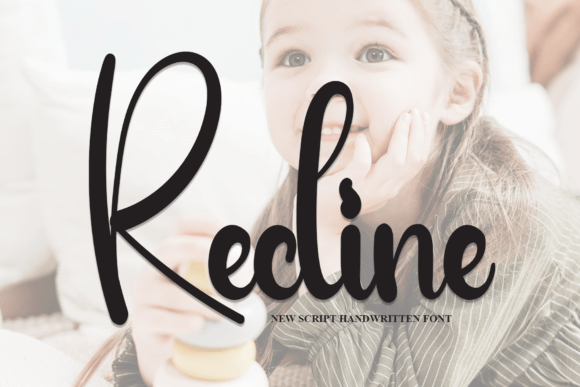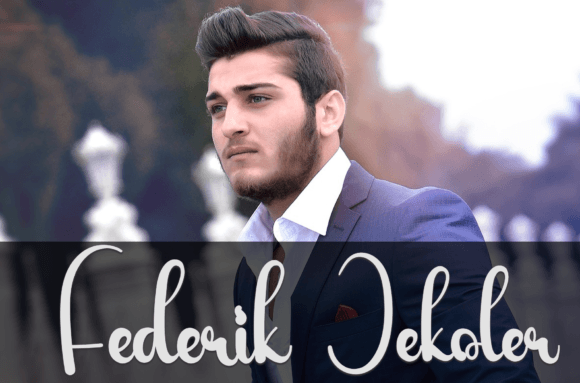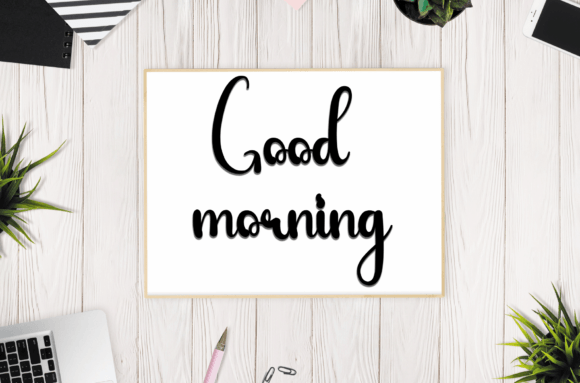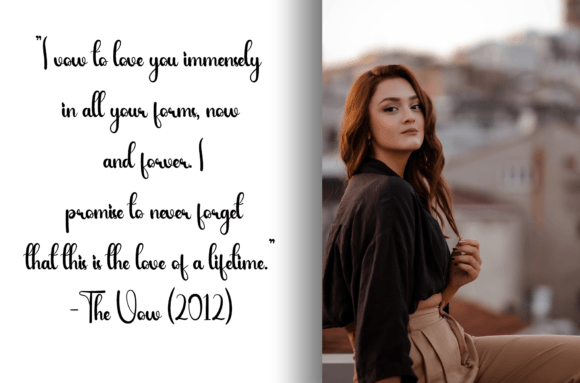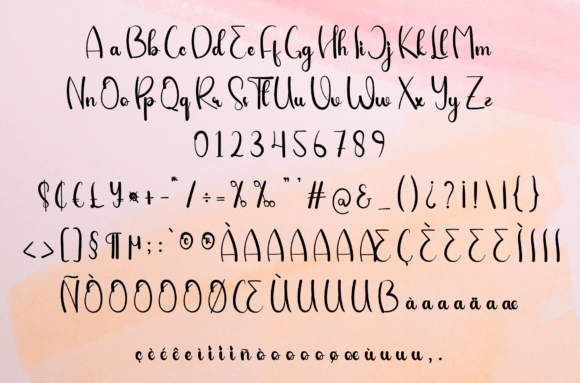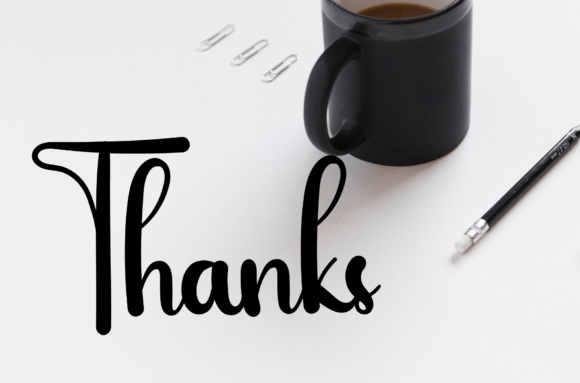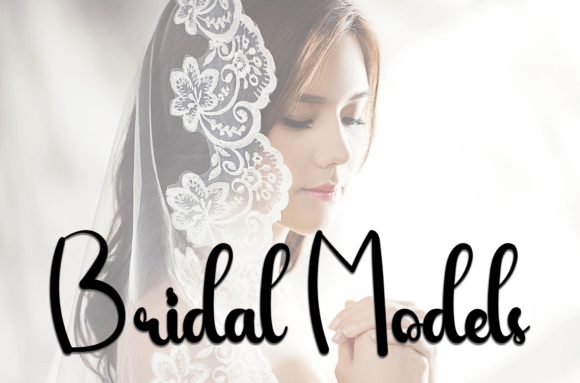
Recline Font
About Recline Font
Recline font is a warm and friendly handwritten typeface thoughtfully designed to become a beloved favorite in your font collection. Its inviting and natural style brings a handcrafted feel to your designs, making it perfect for a variety of creative projects. Whether you’re designing wedding invitations, branding, social media graphics, or personal crafts, Recline font adds a lively, personal touch that enhances your work.
Warm and Inviting Handwriting Style
The charm of Recline font lies in its smooth, flowing strokes and approachable letterforms. It strikes a perfect balance between readability and personality, ensuring your message is clear while adding a warm, authentic feel. This font’s versatile style fits modern and classic design needs alike, giving your projects timeless appeal.
Versatile Applications of Recline Font
Recline fon works beautifully across many design areas, including:
• Wedding invitations and greeting cards
• Brand logos and business stationery
• Social media content and marketing materials
• Personal notes and creative lettering
• Flyers, posters, and printed materials
Thanks to its friendly and adaptable style, Recline fon performs well in both digital and print formats, maintaining its charm across all platforms.
Adding Personality and Warmth
Using Recline fon injects warmth and a personal vibe into your designs. The handwritten look helps build a connection with your audience, making your messages feel heartfelt and genuine. This font’s friendly character enhances your creative expression by providing a unique handwritten style that stands out.
Why Choose Recline Font?
• Friendly and legible handwritten style
• Smooth, clear letterforms
• Versatile for various creative projects
• Adds warmth and personality
• Suitable for both print and digital use
Final Thoughts on Recline Font
In summary, Recline fon is a friendly and charming handwritten typeface perfect for wedding invitations, branding, social media, and much more. Its warm and lively style makes it a valuable tool for designers who want to add personality and charm to their projects.